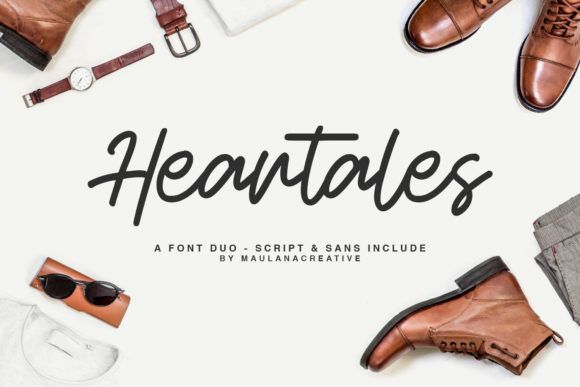
Introducing Heartales Font, the exquisite script font that's set to capture your heart and ignite your creativity. This enchanting font, lovingly crafted by Maulana Creative, oozes authenticity and charm, promising to infuse your designs with a touch of timeless elegance and sophistication.
Heartales is not just a font; it's an experience that transcends the ordinary. Its meticulously designed curves and enchanting flourishes evoke a sense of nostalgia and romance, inviting you to embark on a journey through the annals of history. With its delicate strokes and graceful swashes, Heartales effortlessly adds a touch of allure to any project, whether it's a wedding invitation, a heartfelt letter, or an eye-catching logo.
Using Heartales is akin to stepping into a world of timeless beauty, where every letter dances across the page with grace and poise. Its versatility is truly remarkable, effortlessly complementing a myriad of design styles, from the classic and traditional to the modern and contemporary. Unleash your creativity and let Heartales elevate your designs to new heights of sophistication.
Embrace the captivating power of Heartales Font and embark on a creative odyssey that will leave you spellbound. Let your designs blossom with the charm of yesteryear, while simultaneously embracing the vibrancy of the modern era. Heartales is the perfect fusion of old-world elegance and contemporary flair, ensuring your designs stand out from the crowd and leave a lasting impression.